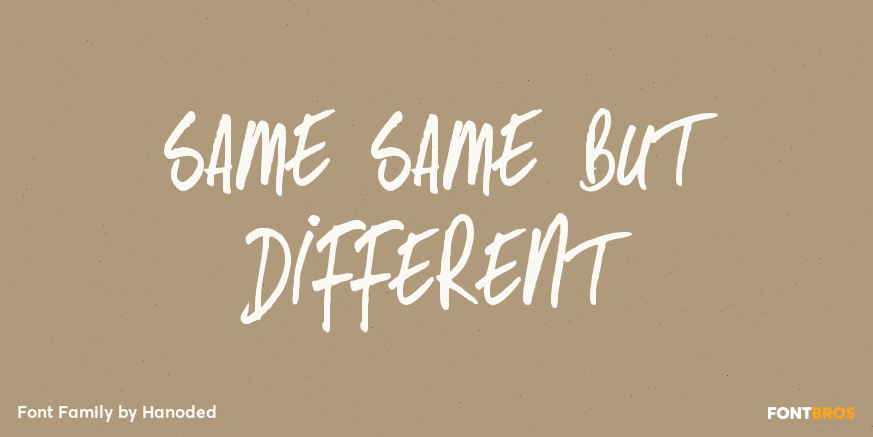
Same Same But Different
About Same Same But Different
Same Same, But Different is a loose, handwritten font with excellent legibility. It evokes post-it scripts, or notebook doodles and can be used virtually everywhere! Same Same But Different comes with extensive language support.